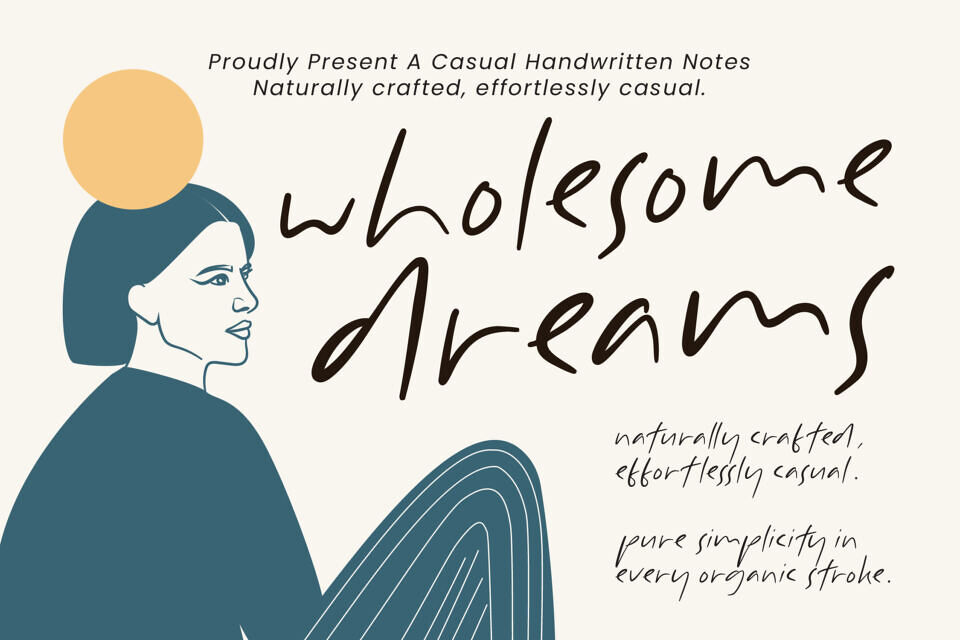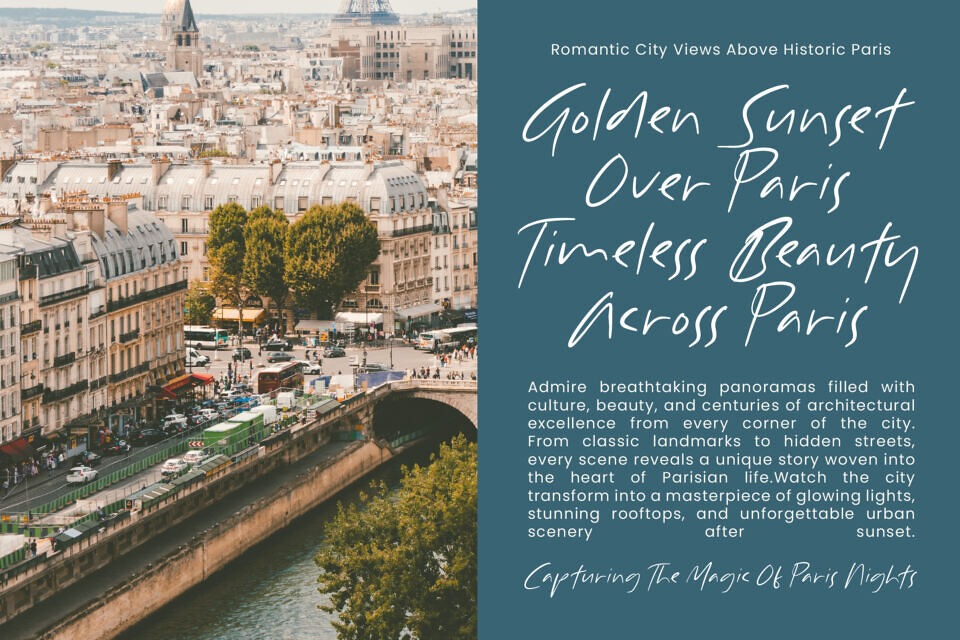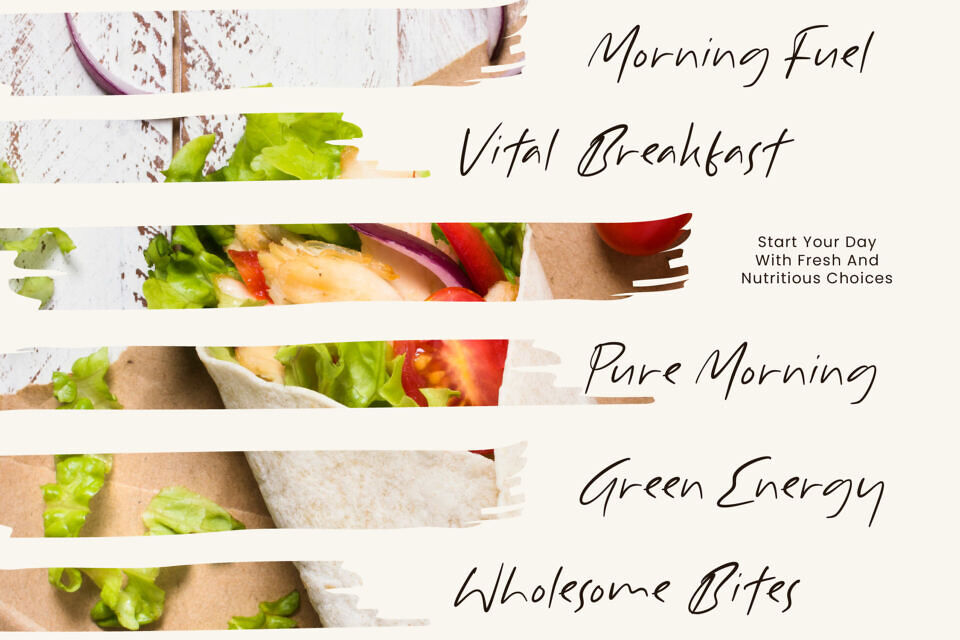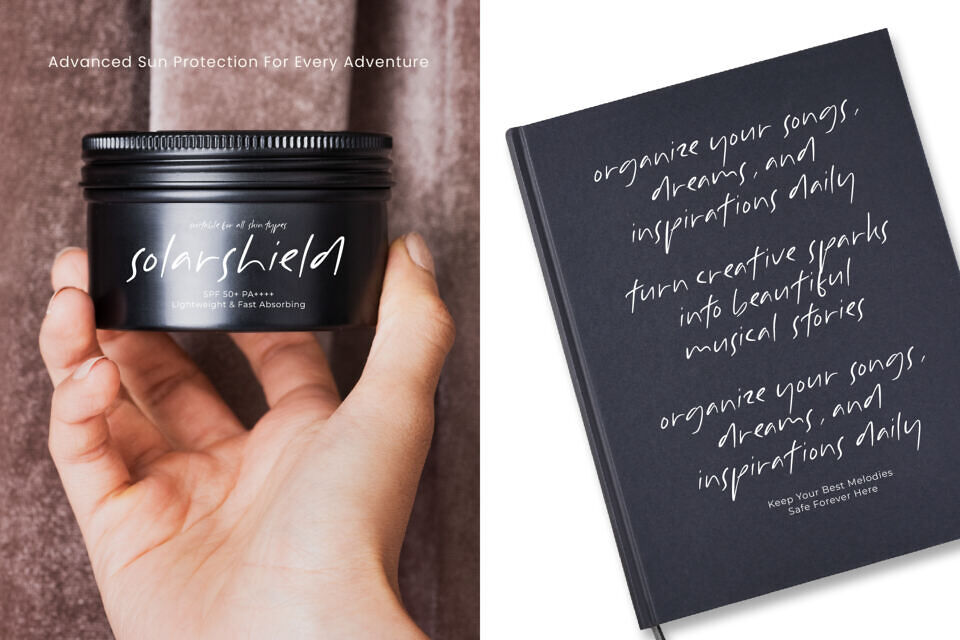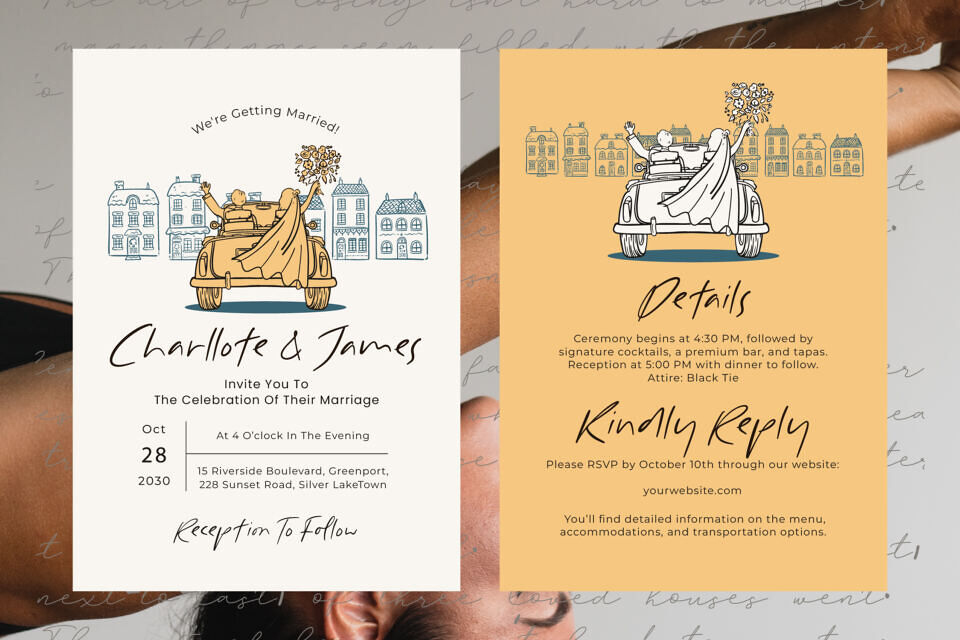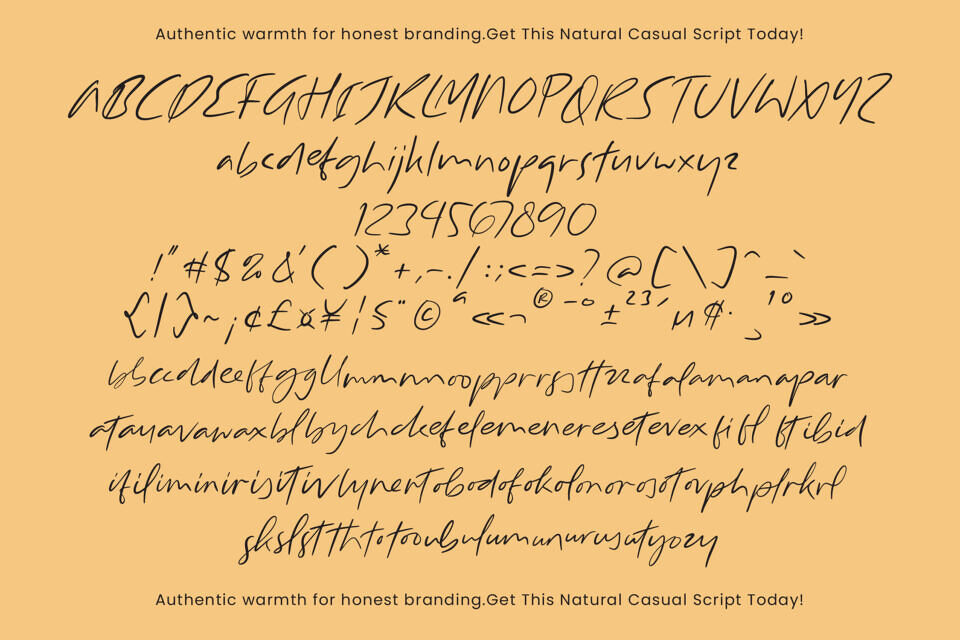
Wholesome Dreams is a casual handwritten notes font inspired by the beauty of everyday handwriting. Designed with natural pen strokes, relaxed letterforms, and effortless movement, this typeface captures the authentic charm of personal notes, journals, and spontaneous creative expressions.
Its organic structure creates a warm and approachable personality that feels genuine, friendly, and modern. Every letter is carefully crafted to preserve the imperfections that make handwritten typography feel human, while maintaining enough clarity for professional design applications.